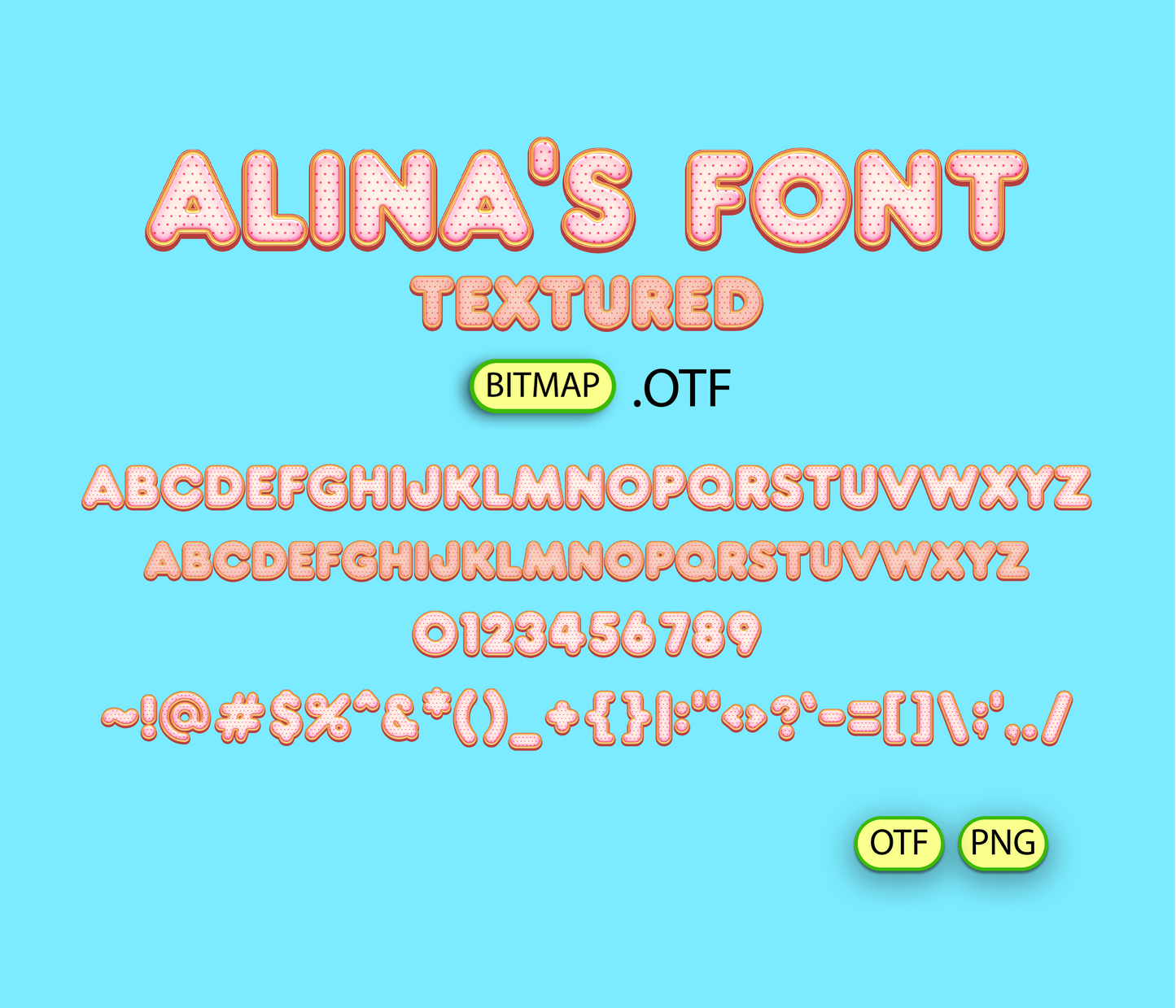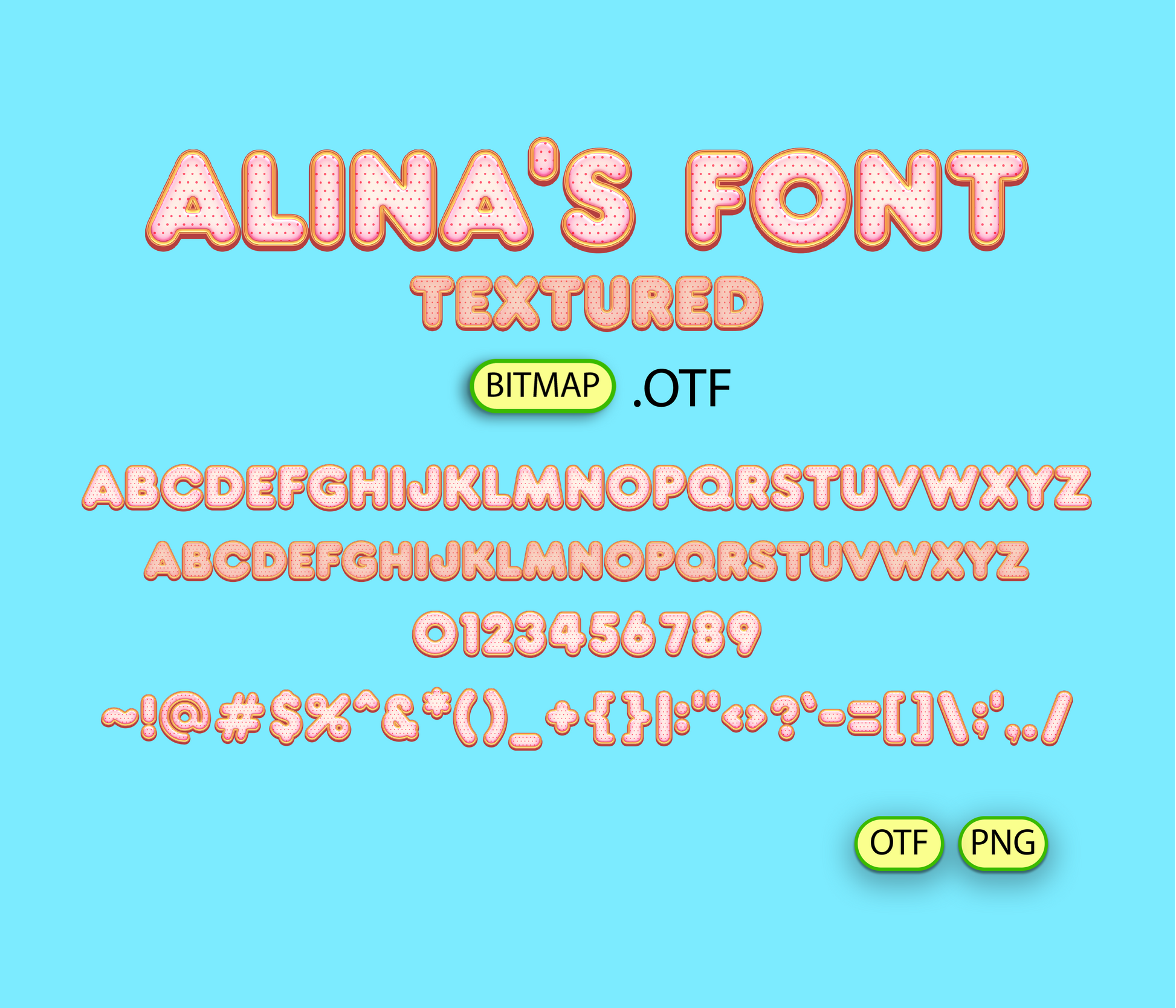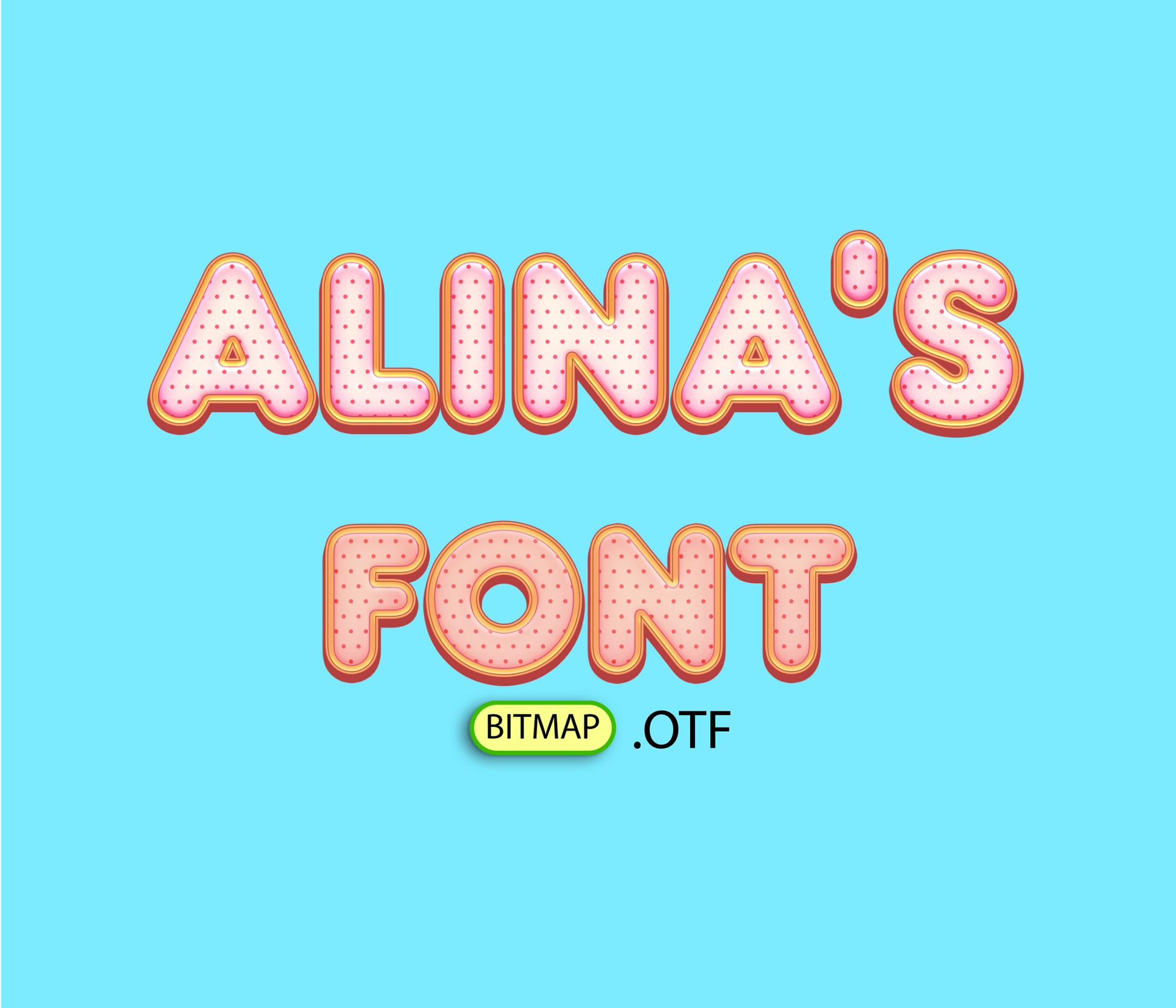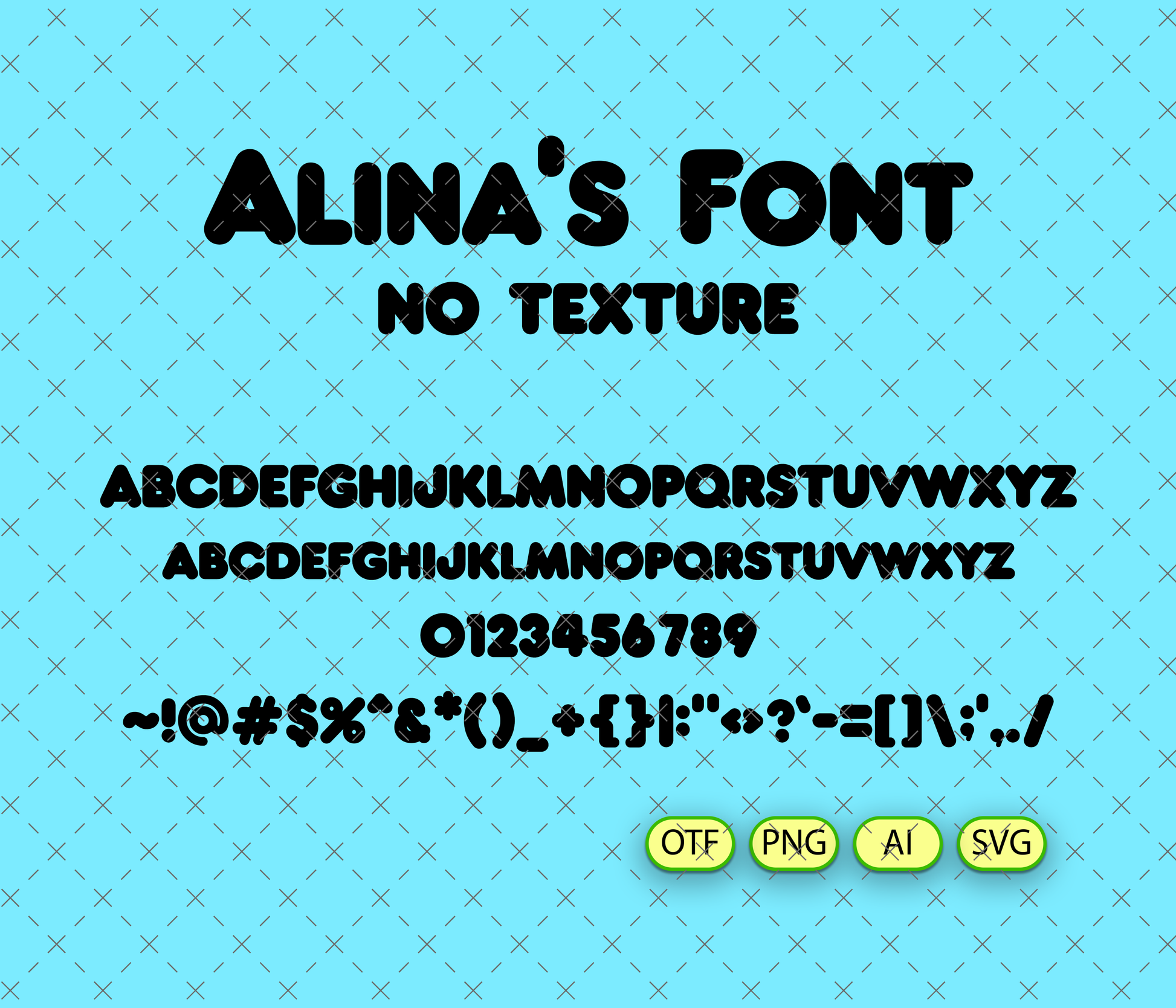
Soda Pop Pattern Font
Soda Pop Font Textured
Fizz into the sparkling universe of retro beverage celebration with our Soda Pop Font Textured, capturing the essence of bubble-burst lettering energy and vintage-diner graphic mystique. Perfect for food and beverage enthusiasts, themed event planners, content creators, and creative professionals, this font brings the bold, timeless spirit of classic refreshment stories to your projects. Create eye-catching invitations, merchandise, or digital content with the dramatic energy of nostalgic soda fountain culture narratives.
Bubbly Typography for Retro Design & Creative Projects
Our Soda Pop Font Textured features effervescent, vibrantly crafted letterforms with fizzing carbonated textures reflecting the world of classic diner counters and vintage soda fountain settings.
- Event Promotions: Craft refreshing invitations, posters, and banners for retro themed parties, food festivals, and gatherings that capture the spirit of vintage soda fountain entertainment
- Merchandise Design: Sensational for t-shirts, posters, stickers, and accessories that showcase the bubbly aesthetic of classic beverage culture themes
- Digital Media: Carbonate websites, blogs, and social media with fizzing headers and graphics that radiate the nostalgia of beloved retro diner eras
- Creative Content: Pour genuine effervescence into retro artwork, editorial designs, and creative projects inspired by cherished soda fountain counter tales
- Personal Projects: Bubble up festive energy throughout scrapbooking, DIY crafts, and home decor inspired by the world of iconic vintage refreshment characters
Many seek an online font generator to imitate the appearance of the Soda Pop Font. Do not be tempted! No generator can fizz up the authentic character of our font, which comes in a clean outline version perfect for cutting machines.
Our font toasts the world of vintage beverage culture stories and nostalgic soda fountain discovery, empowering your projects with its bold and timeless spirit. Whether crafting promotional materials, designing themed products, or adding a retro refreshment touch to personal projects, this font communicates the vibrant essence of classic soda pop entertainment. Ready to pour nostalgic mystique into your creations? This font is your most refreshing asset for eye-catching, impactful design.